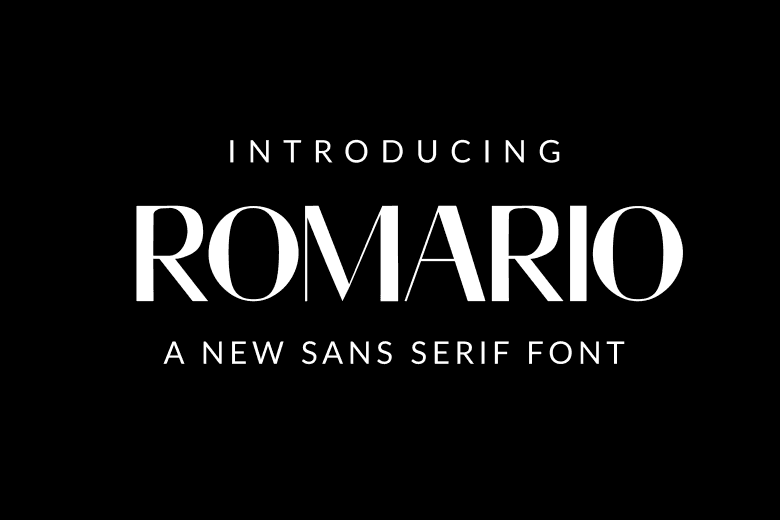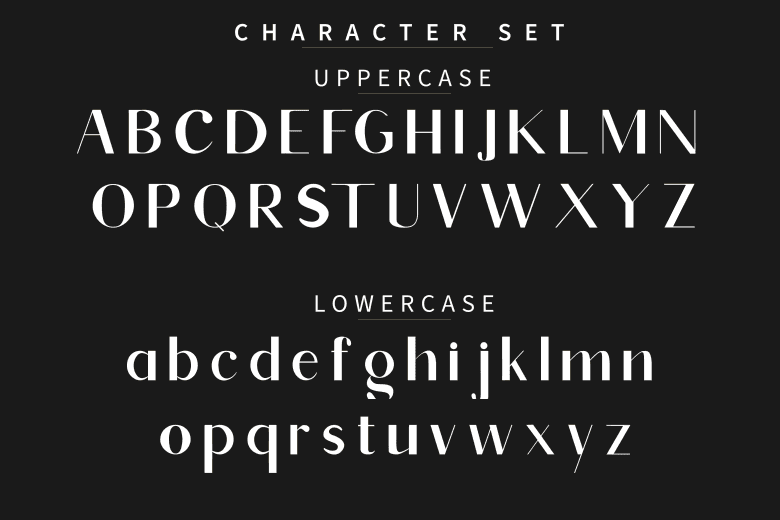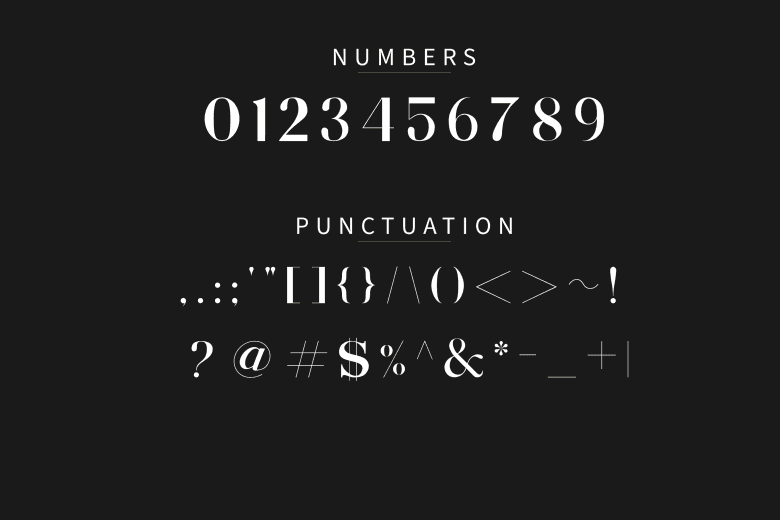
Discover Romario Font, part of the Sans Serif collection—a versatile and unique font perfect for adding a personal touch to your projects. Download it for free and enjoy crafting designs with style, from invitations to social media posts. This font is available exclusively for personal use, giving you the freedom to create without limits. Unlock your creativity with Romario Font today!
Romario can be described as an impressive and authentic Sans Serif font that fits easily with various projects and forms part of your creative expression – make an impressionful statement with Romario today!